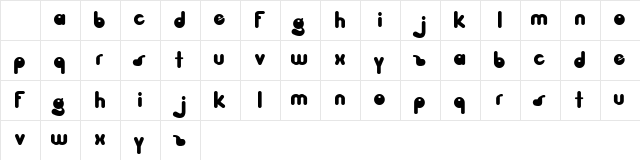
Fingerbobs Regular
Design Context for Fingerbobs Typeface
Fingerbobs is a composed and adaptable typeface that performs quietly and consistently across a wide range of design contexts.